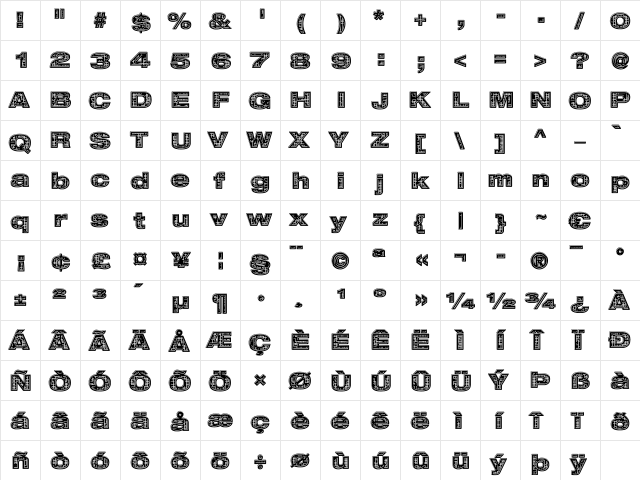
HopScotch 'ElectricEddie' Regular
| Designer | HT |
Design Context for HopScotch 'ElectricEddie' Typeface
HopScotch 'ElectricEddie' channels digital-age aesthetics through its sharp, structured letterforms — ideal for brands that want to signal innovation.